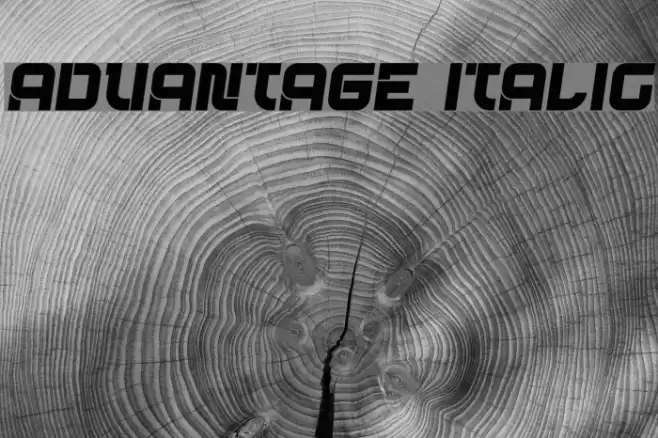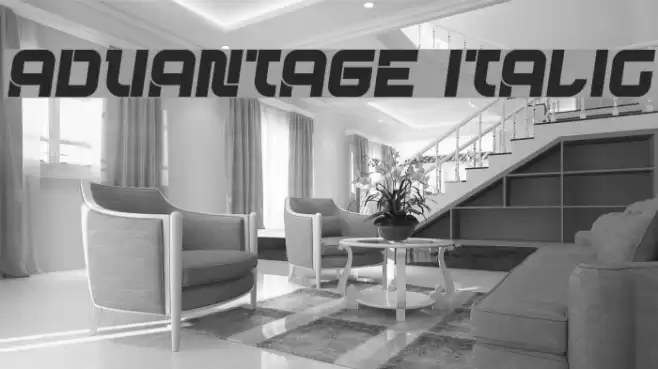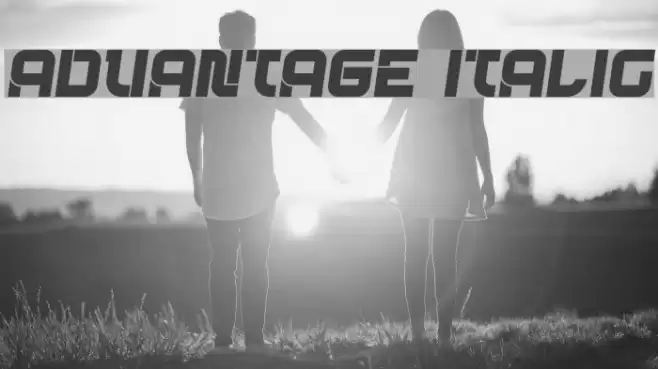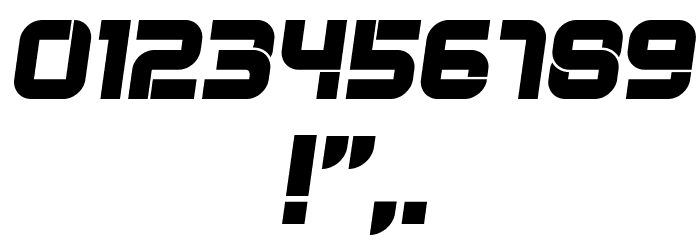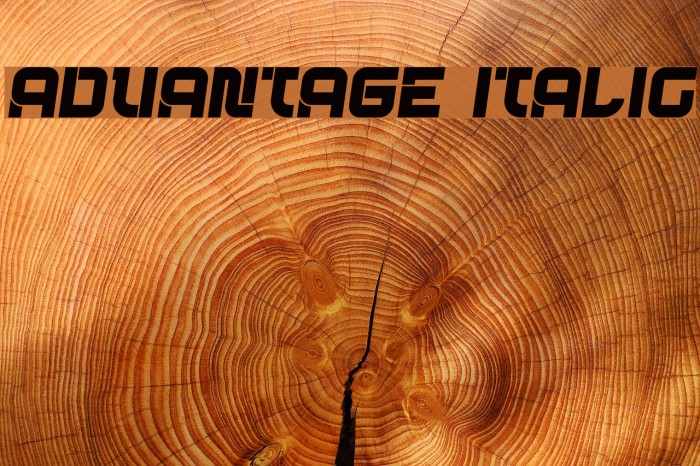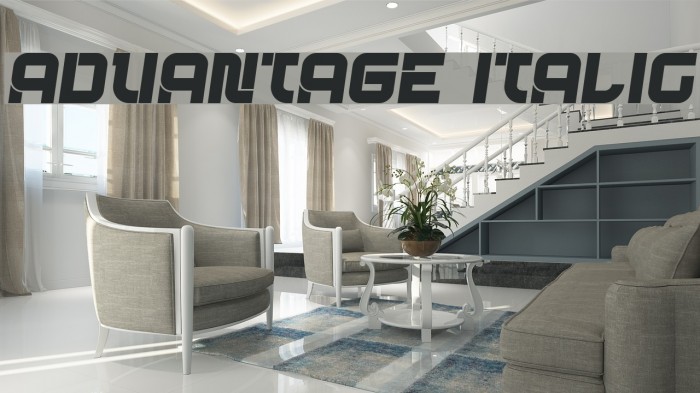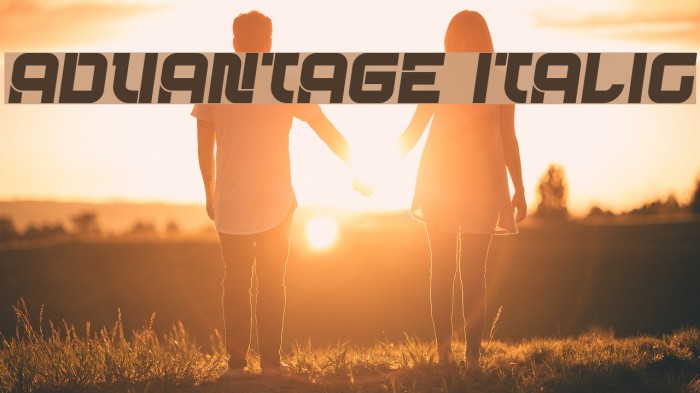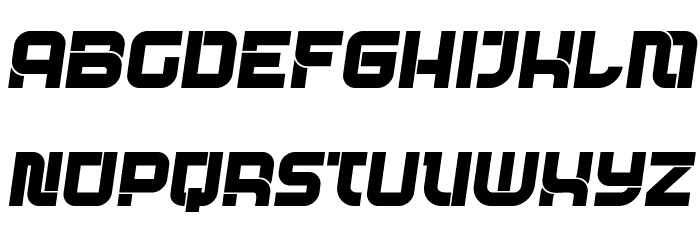
Advantage Italic Font
Advantage Italic Description
This font features a bold and dynamic design with a futuristic flair. The characters are italicized, giving a sense of motion and speed. Each letter is crafted with sharp angles and clean lines, creating a modern and sleek appearance. The uppercase and lowercase letters maintain a consistent style, with a slightly condensed width that enhances readability. The numerals are equally bold and match the overall aesthetic, making them suitable for impactful displays. Special characters are included, maintaining the same bold and angular design, ensuring consistency across all text elements.
A bold, italicized font with a futuristic and dynamic design from Uncategorized fonts.